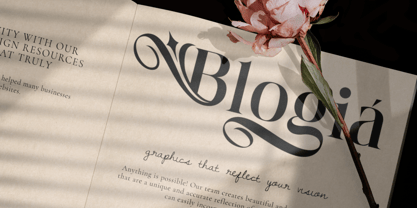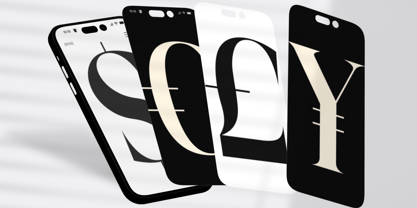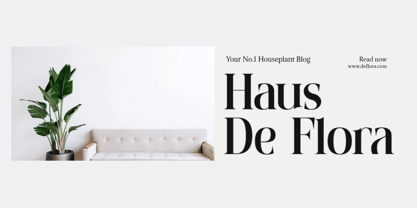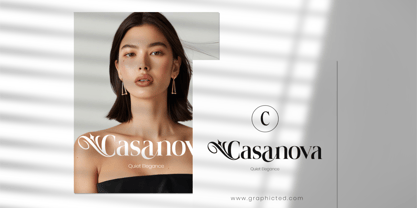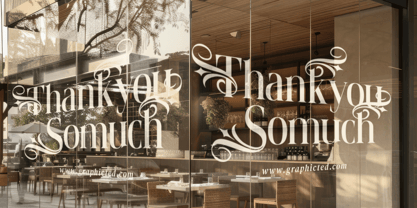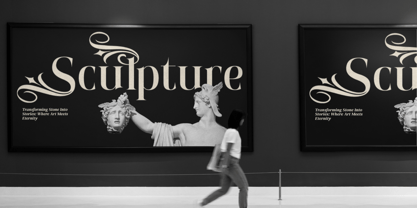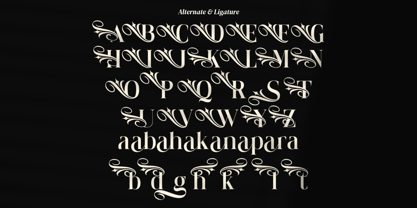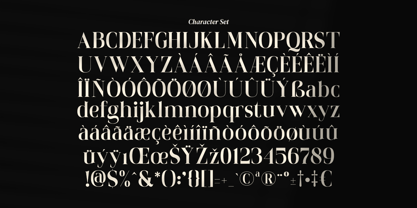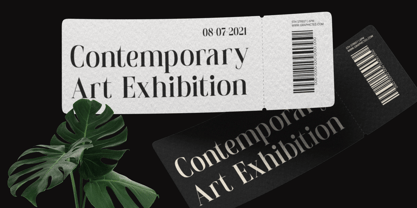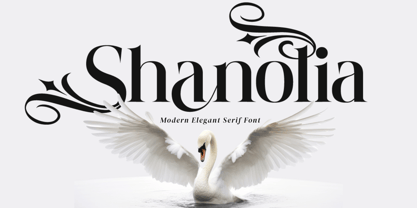
Shanolia
von Glyphminds Studios
Die Schriftfamilie Shanolia wurde von Baliya Ibnu Bi Malkan entworfen und von Glyphminds Studios veröffentlicht. Shanolia enthält 1 Stile.
Enhance your designs with Shanolia, a modern elegant serif font that exudes sophistication and grace. Perfect for branding, wedding invitations, luxury packaging, editorial designs, and more, this font combines timeless style with contemporary details. The intricate swashes and stylish curves make Shanolia the ideal choice for designers aiming to make an unforgettable impression. Pair it with minimalist layouts or bold visuals to elevate your projects to a new level of elegance
Designer: Baliya Ibnu Bi Malkan
Herausgeber: Glyphminds Studios
Foundry: Glyphminds Studios
Eigentümer des Designs: Glyphminds Studios